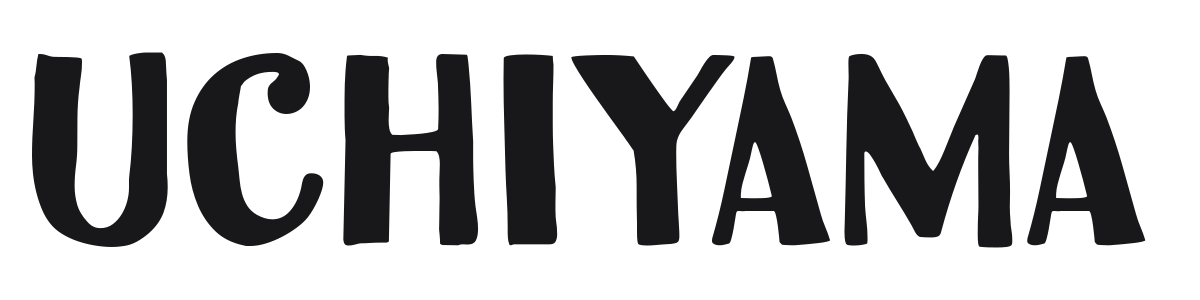
Uchiyama
Uchiyama is a bold, condensed display face from Typodermic Fonts with heavy uppercase letterforms that carry a quirky, slightly off-beat personality. The characters feel dense and tightly packed, with decorative touches that keep it from reading as purely industrial. Built for headlines, posters, and branding where you want something heavy that still has a sense of humor about itself.